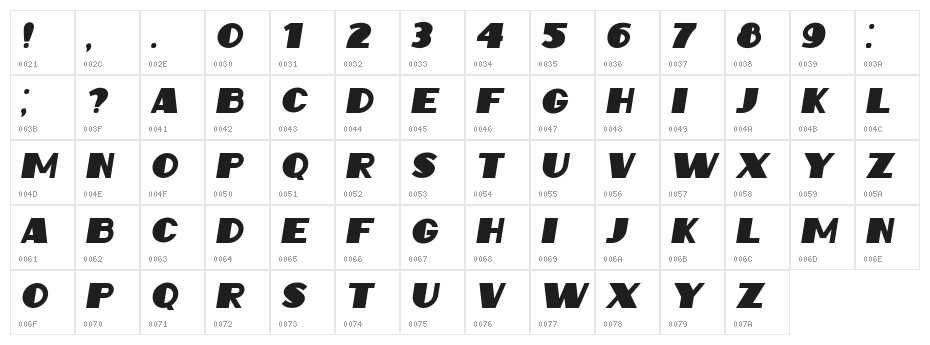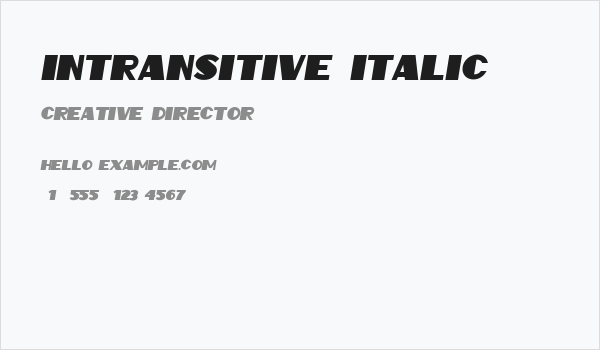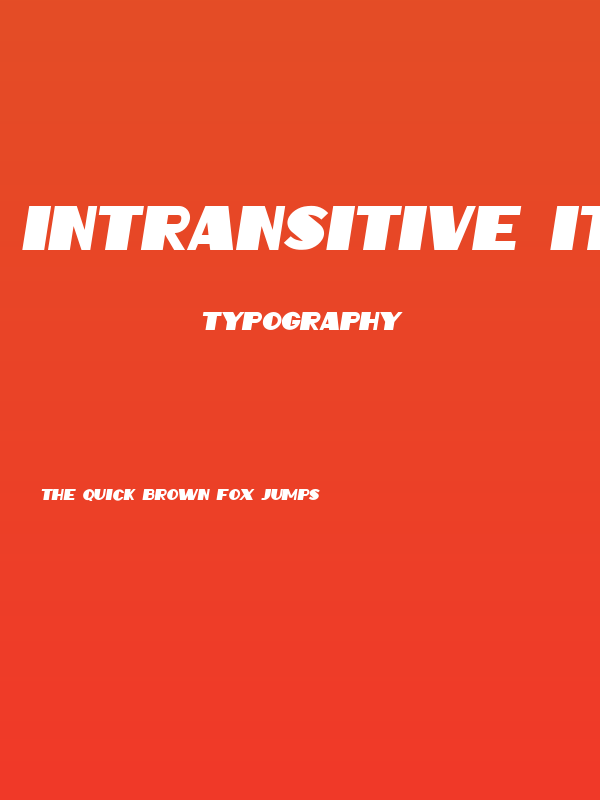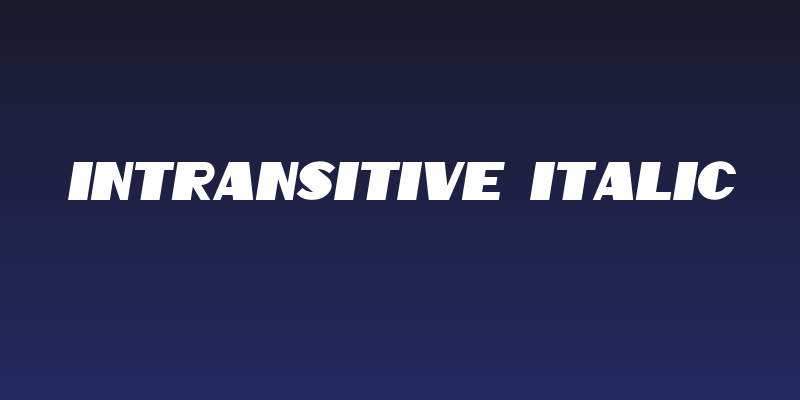
Intransitive Italic Font
Intransitive Italic Description
This font features a bold, italic style with strong, angular lines and a dynamic slant that gives it a sense of motion and energy. The characters are wide and robust, making a powerful visual impact. The uppercase letters are particularly striking, with a uniform thickness that maintains readability while adding a modern flair. The numbers and special characters follow the same bold and italicized design, ensuring consistency across all text elements. This font's boldness and slant make it ideal for attention-grabbing headlines and titles.
| Proposed Projects | Ideal for headlines, posters, branding, and any project requiring a strong, modern aesthetic. |